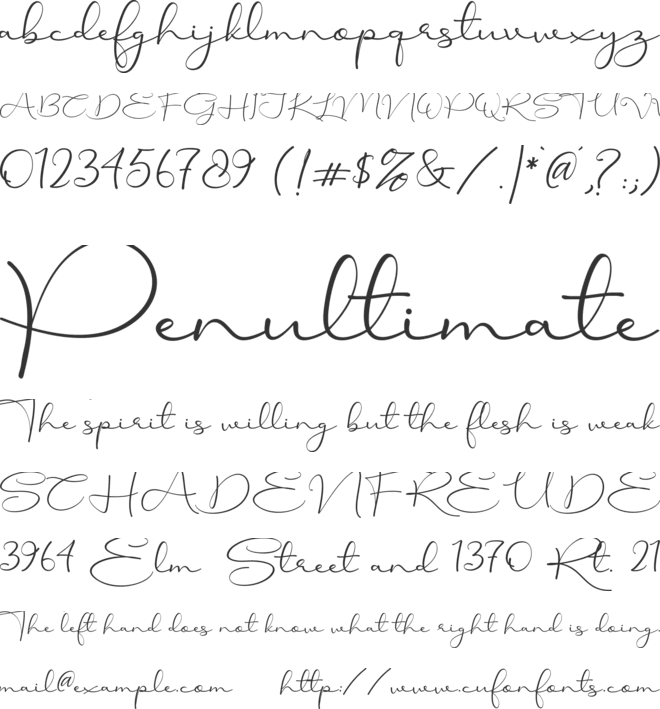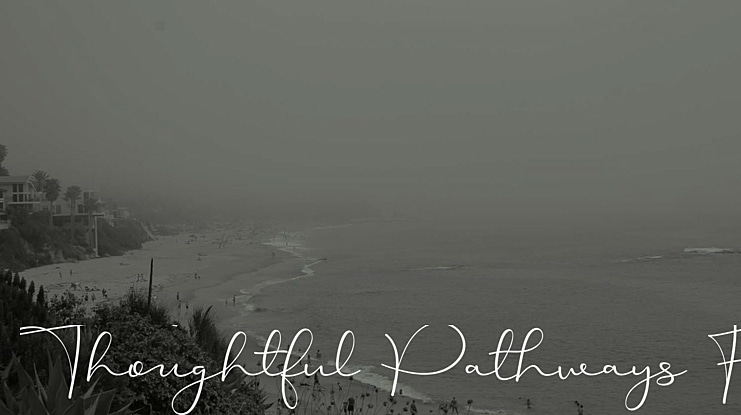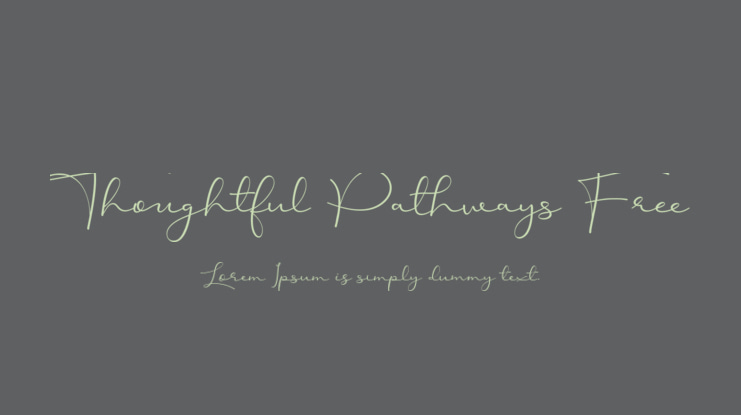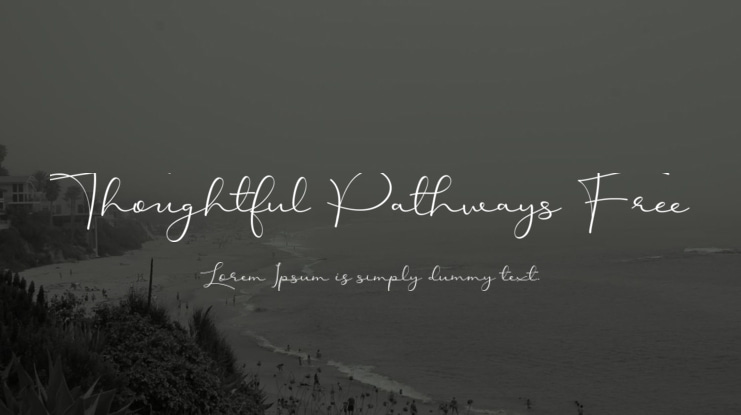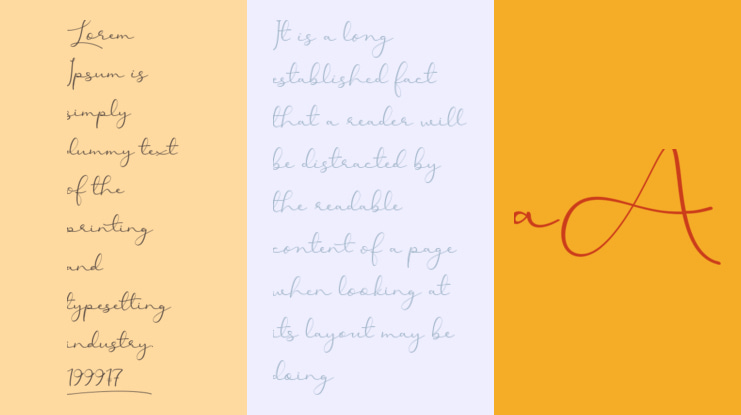
Welcome to the enchanting world of 'Thoughtful Pathways,' a beautifully crafted handwritten font that captures the essence of self-reflection and mindful exploration. Each stroke whispers the wisdom of countless serene moments, guiding you through the intricate trails of your thoughts. Every letter invites you on a profound journey of self-discovery and contemplation, as if each curve and line gently maps your path to inner clarity. 'Thoughtful Pathways' is more than just a font – it is a faithful companion for your creative endeavors, gracefully leading you along the paths of inspiration and intention.
Featuring over 33 natural-looking opentype ligatures, both uppercase and lowercase Stylistic Alternates, an abundance of head/beginning and tail/ending swashes, as well as 30 delicate underline swashes and various other ornaments, arrows, and scribbles, Thoughtful Pathways Font achieves the authentic appearance of a handwritten script. Accessing alternate glyphs, swashes, ornaments, and underlines is made easy through ligatures, which you can try out for yourself using the font preview tool.